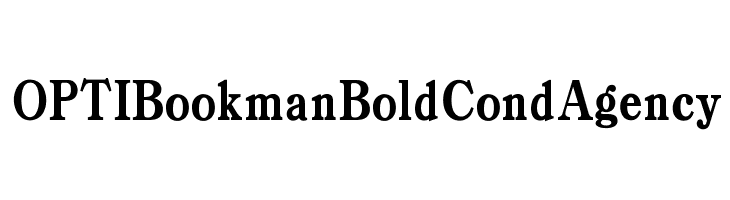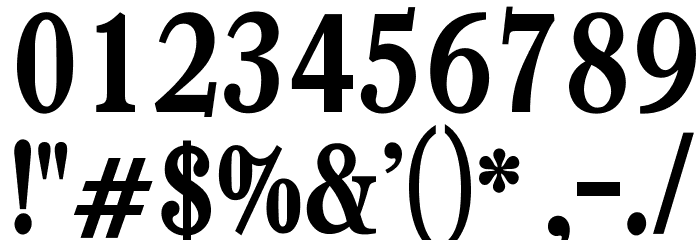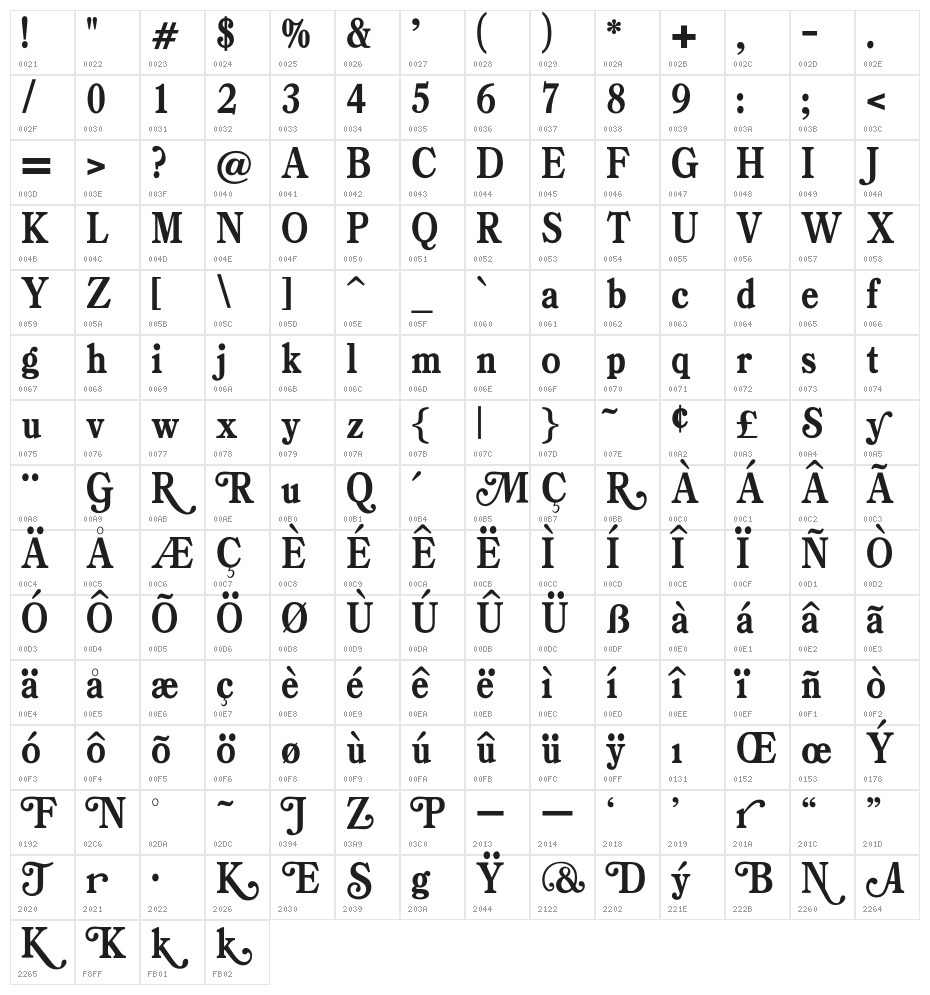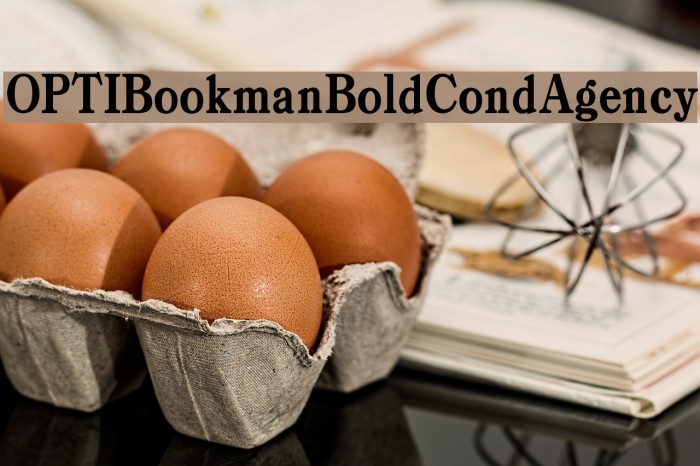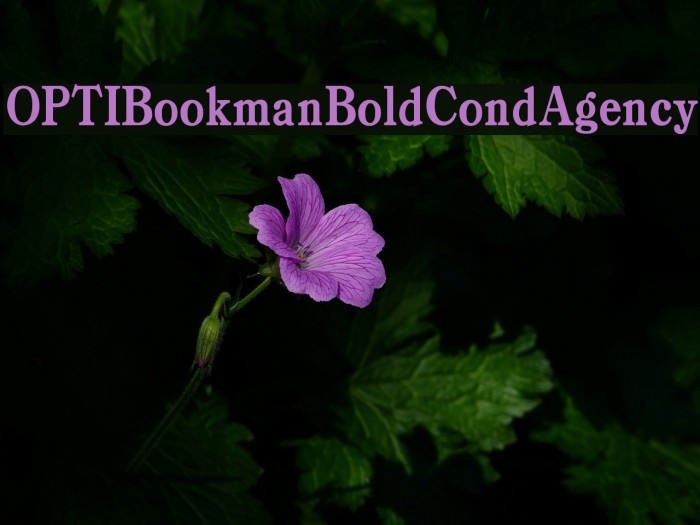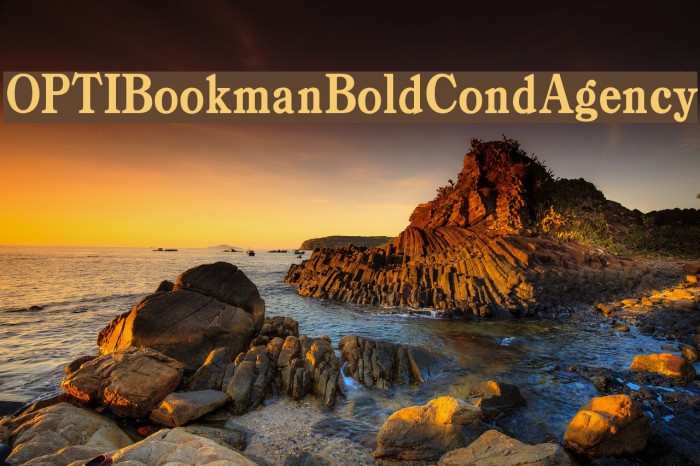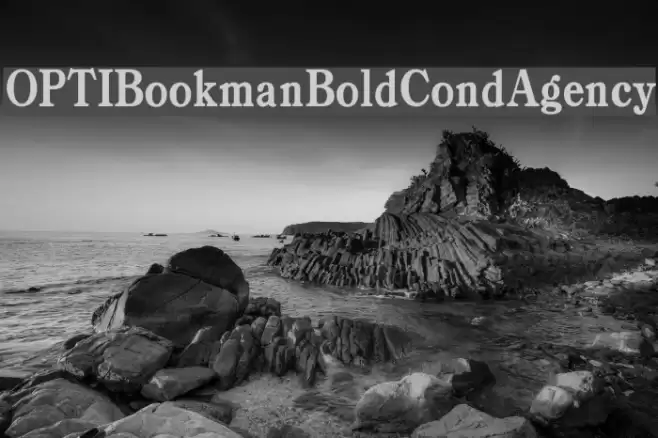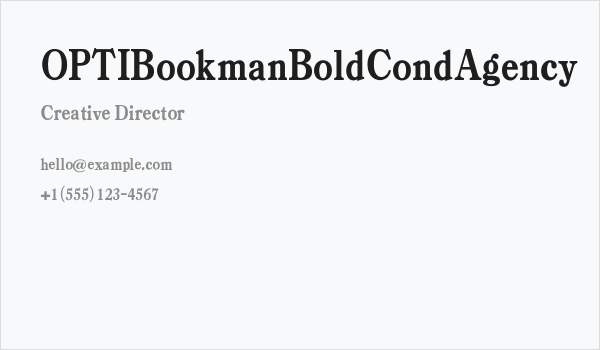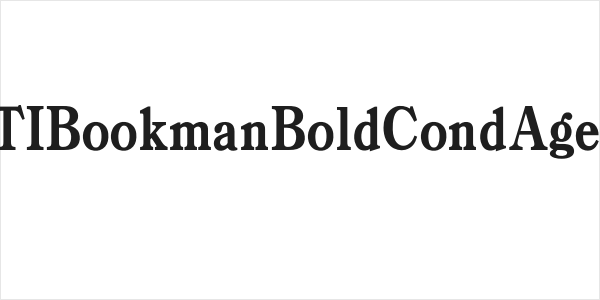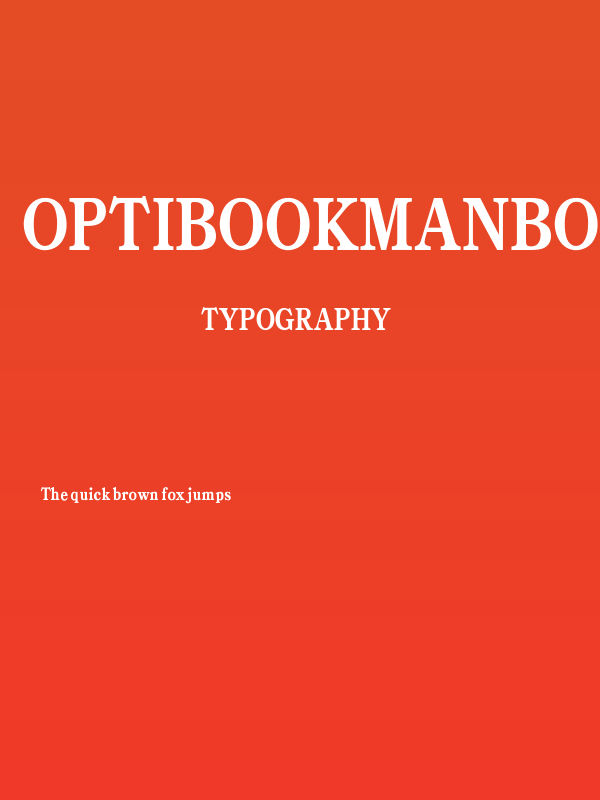
OPTIBookmanBoldCondAgency Font
OPTIBookmanBoldCondAgency Description
This font exhibits a classic serif style with bold, prominent strokes that convey a sense of authority and tradition. The uppercase letters are well-defined with strong vertical lines and slightly curved serifs, providing a balanced and formal appearance. The lowercase characters maintain a consistent weight, ensuring readability and elegance. The numerals are clear and robust, matching the overall boldness of the font. Special characters are crafted with precision, enhancing the font's versatility for various applications.
| Use Case | Headlines, Logos, Editorials |
| Proposed Projects | Ideal for book covers, editorial headlines, formal invitations, and branding materials that require a traditional yet impactful look. |